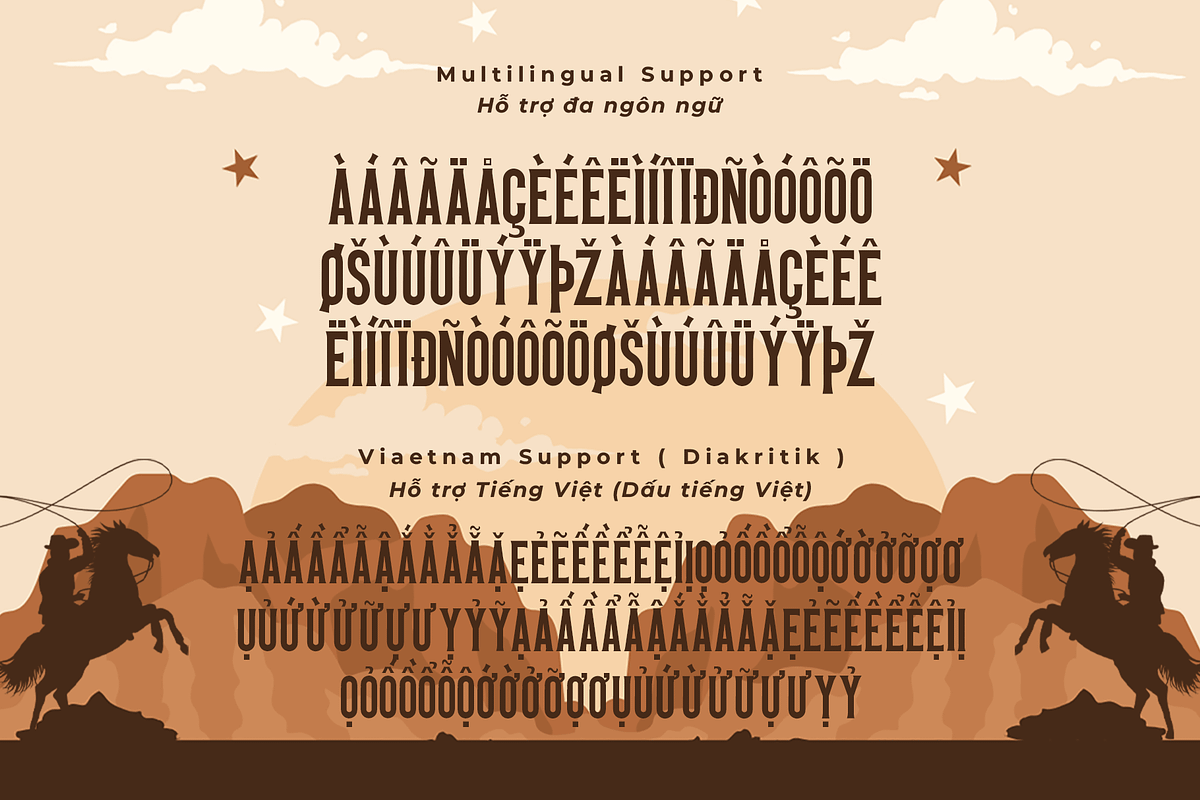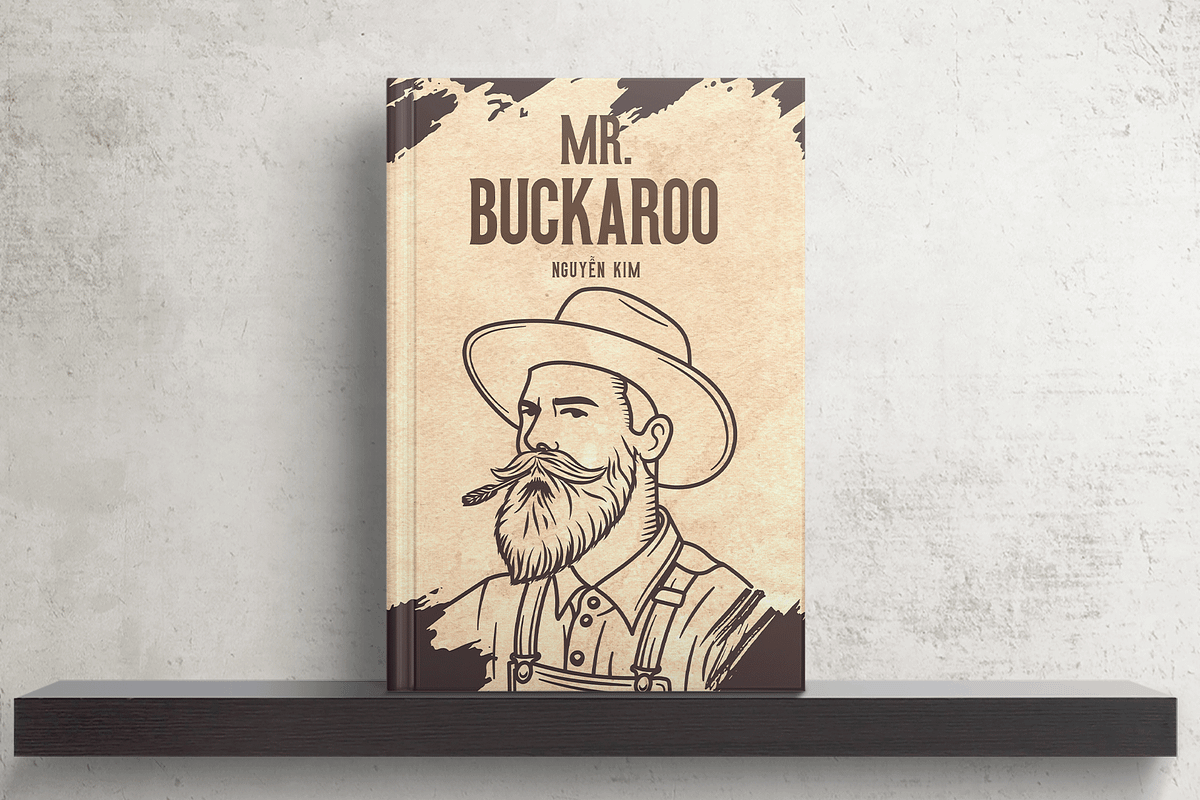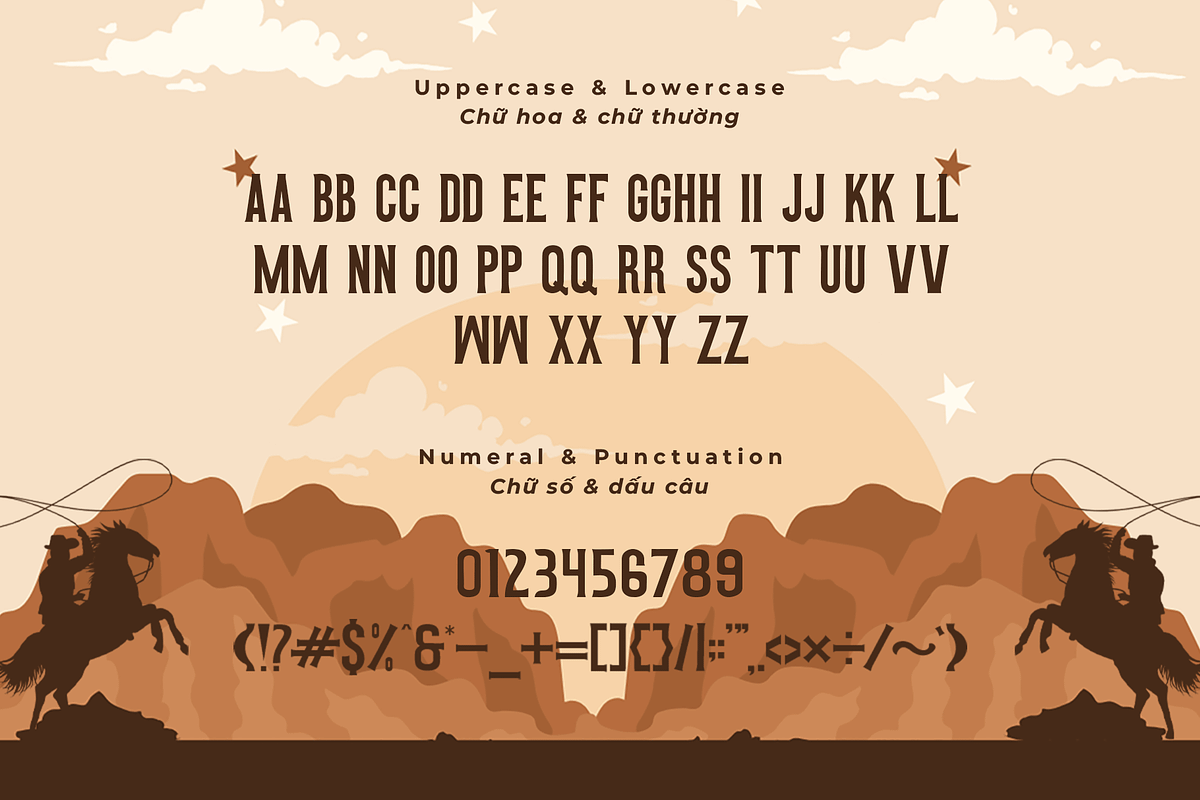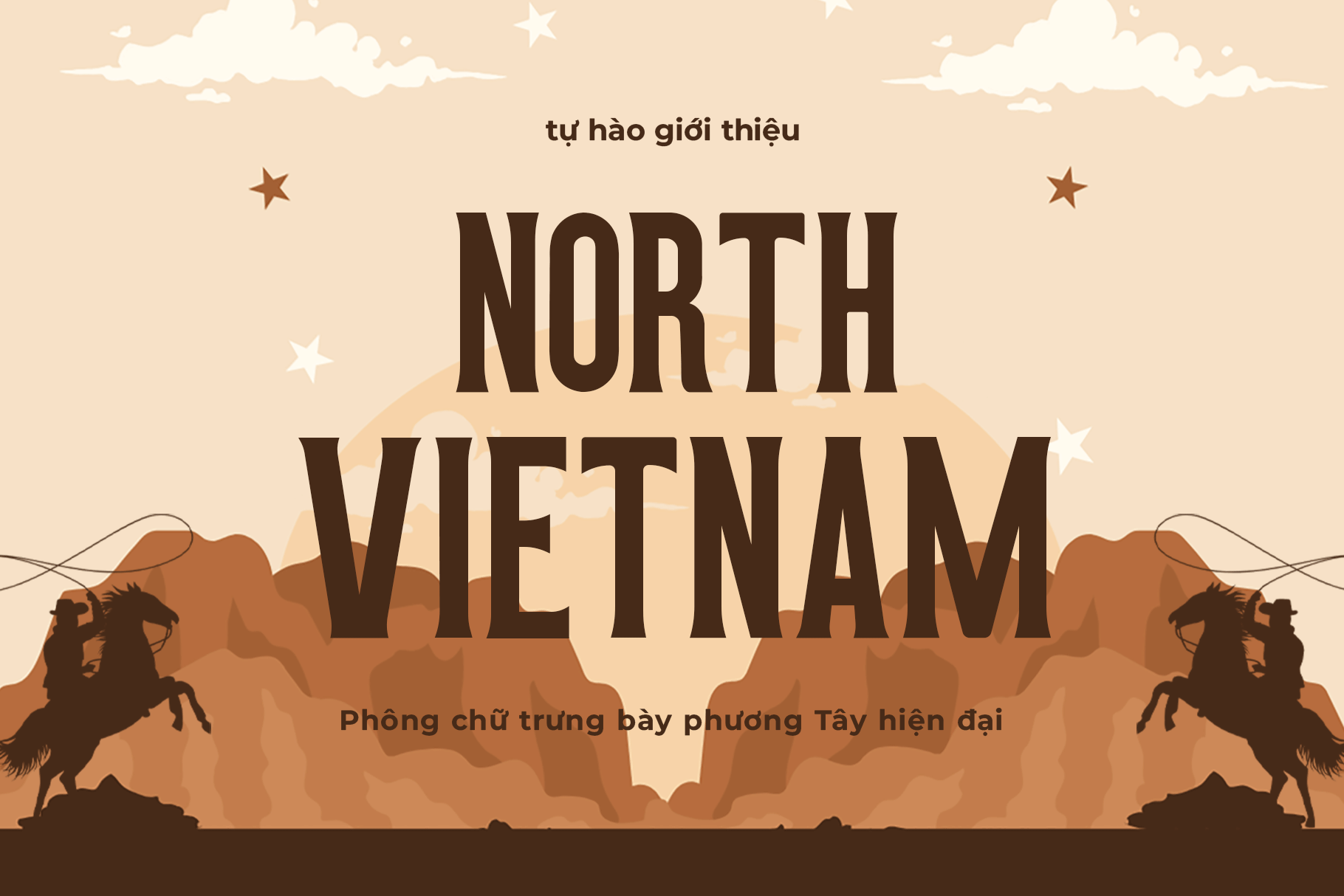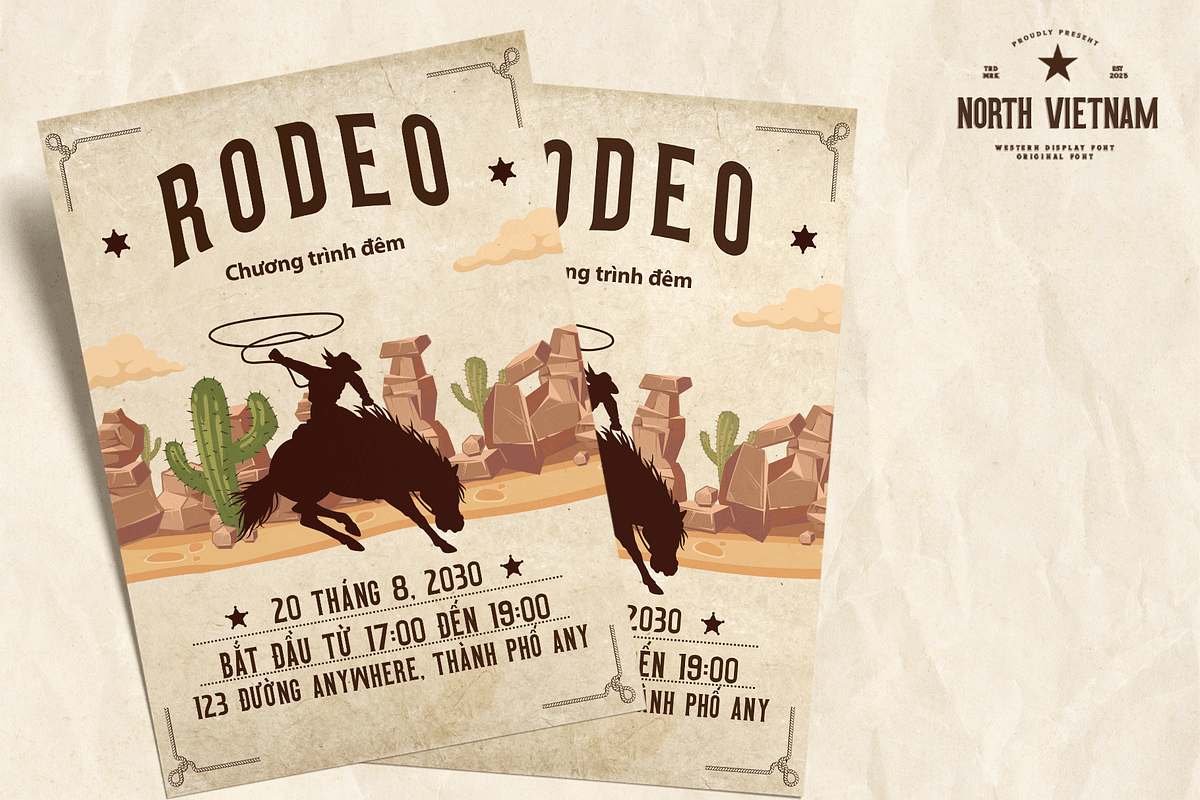
North Vietnam–Elegant Serif Typeface
North Vietnam – Elegant Serif Typeface
North Vietnam is a refined serif typeface that blends classic elegance with a touch of cultural heritage. Designed for versatility, this font is perfect for editorial layouts, branding, book covers, and luxury designs. Its delicate yet bold serifs add sophistication, making it ideal for high-end projects that require a distinctive and professional appearance.
With well-crafted letterforms, North Vietnam ensures excellent readability in both large and small sizes. Whether you're designing a prestigious logo, a stylish magazine, or elegant invitations, this typeface brings an air of refinement and confidence to your work.
Features: ✔ Elegant and professional serif design ✔ Uppercase & lowercase letters ✔ Multilingual support ✔ Punctuation & numerals included
Make a statement with North Vietnam, a serif typeface that embodies tradition and modernity in perfect harmony.